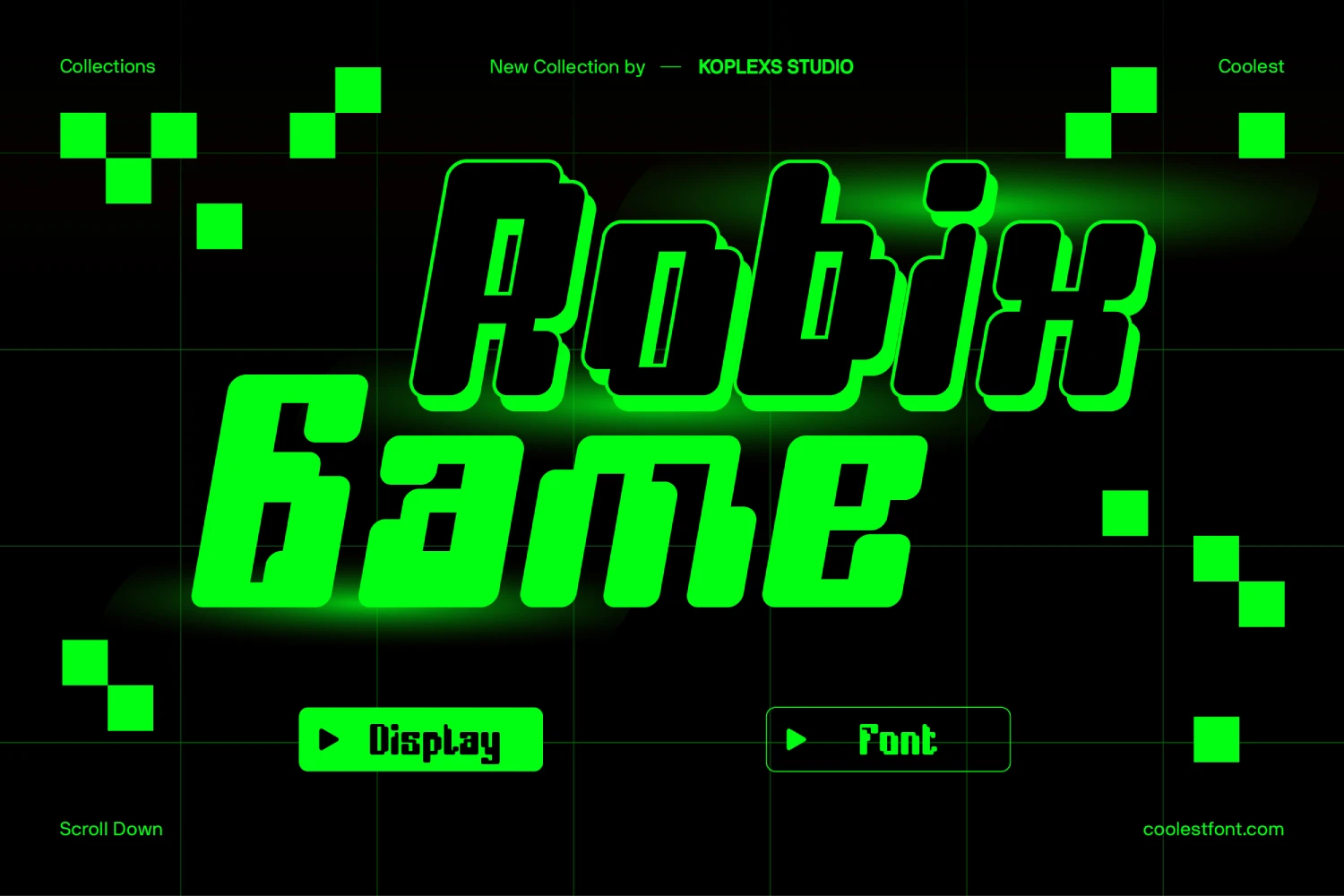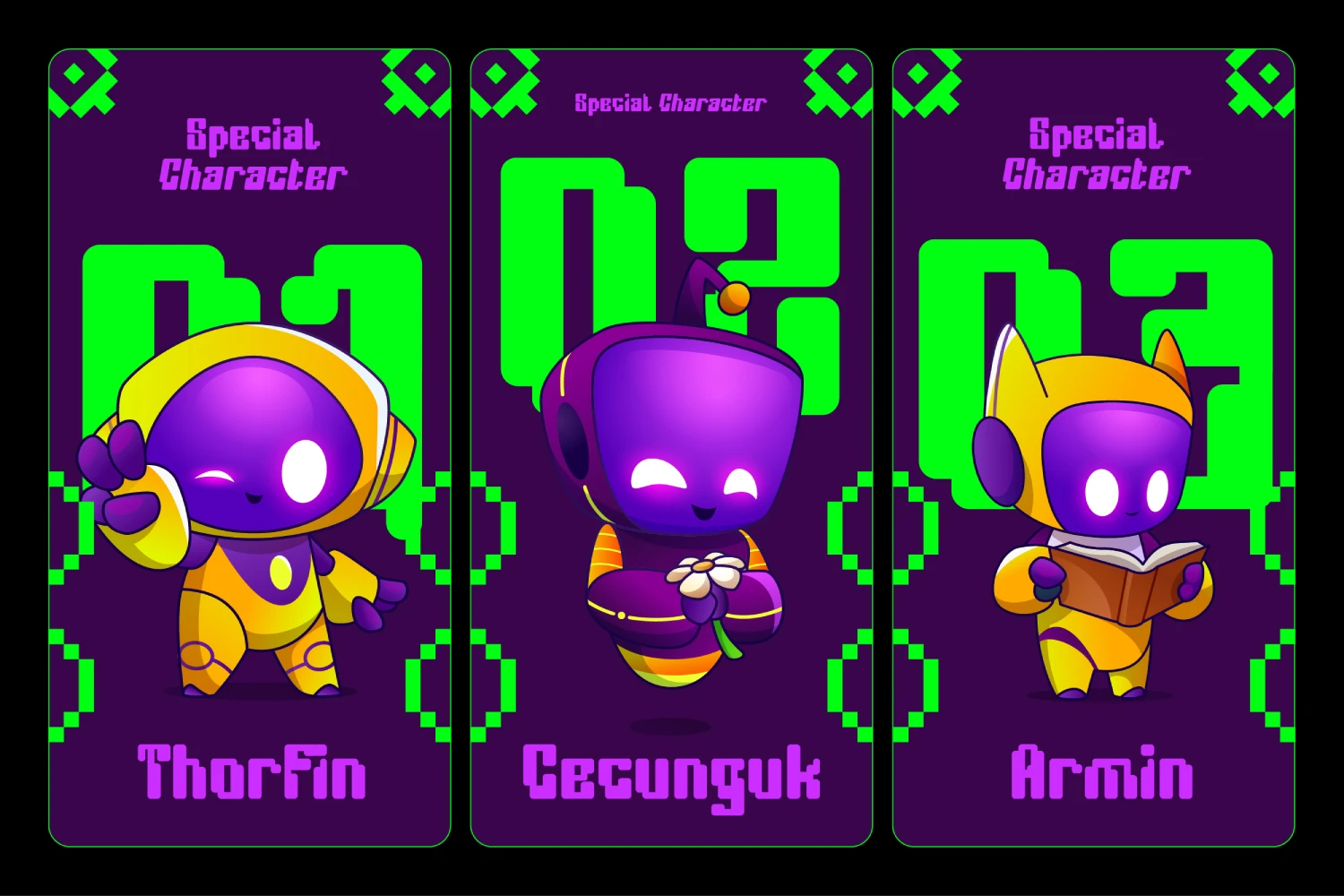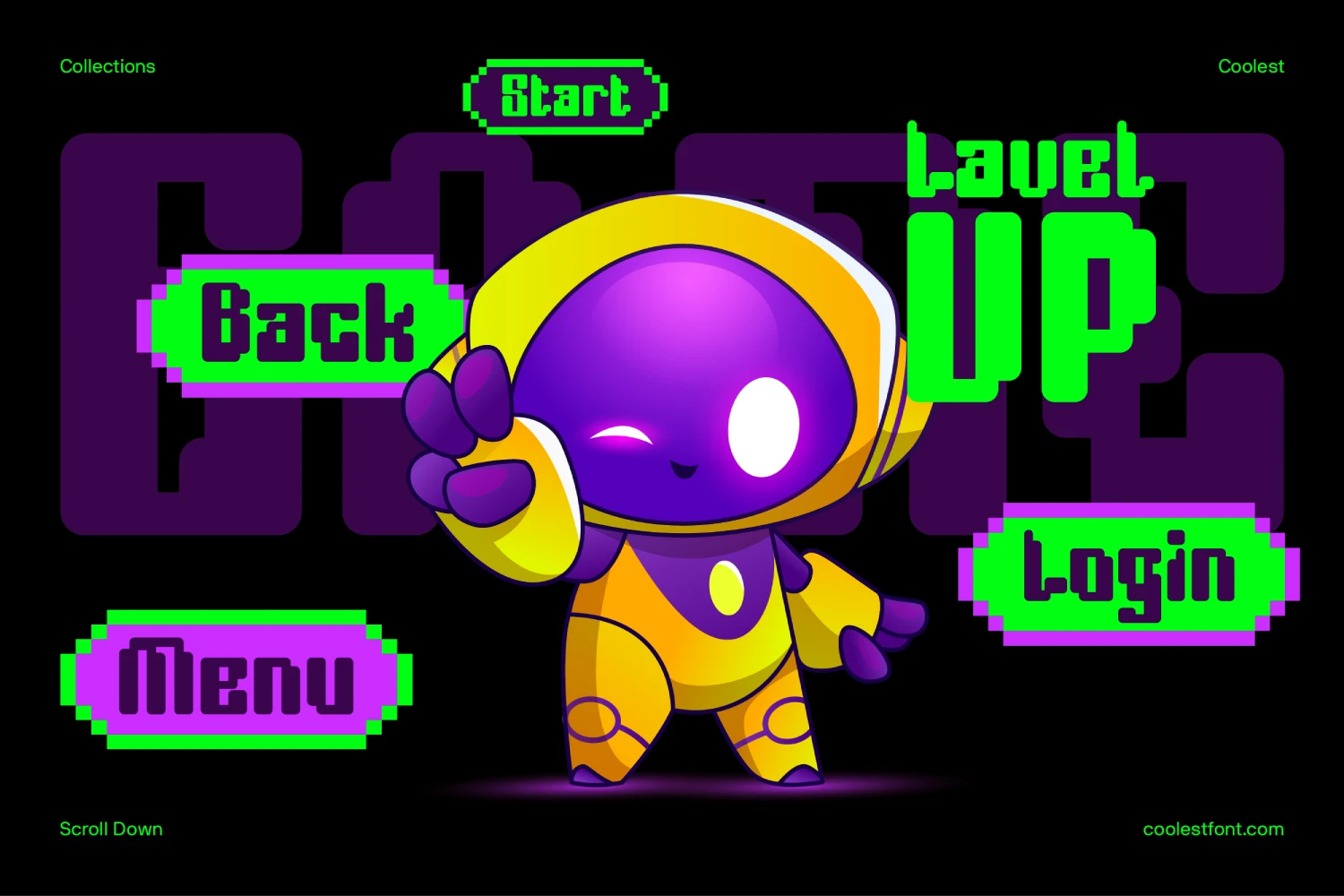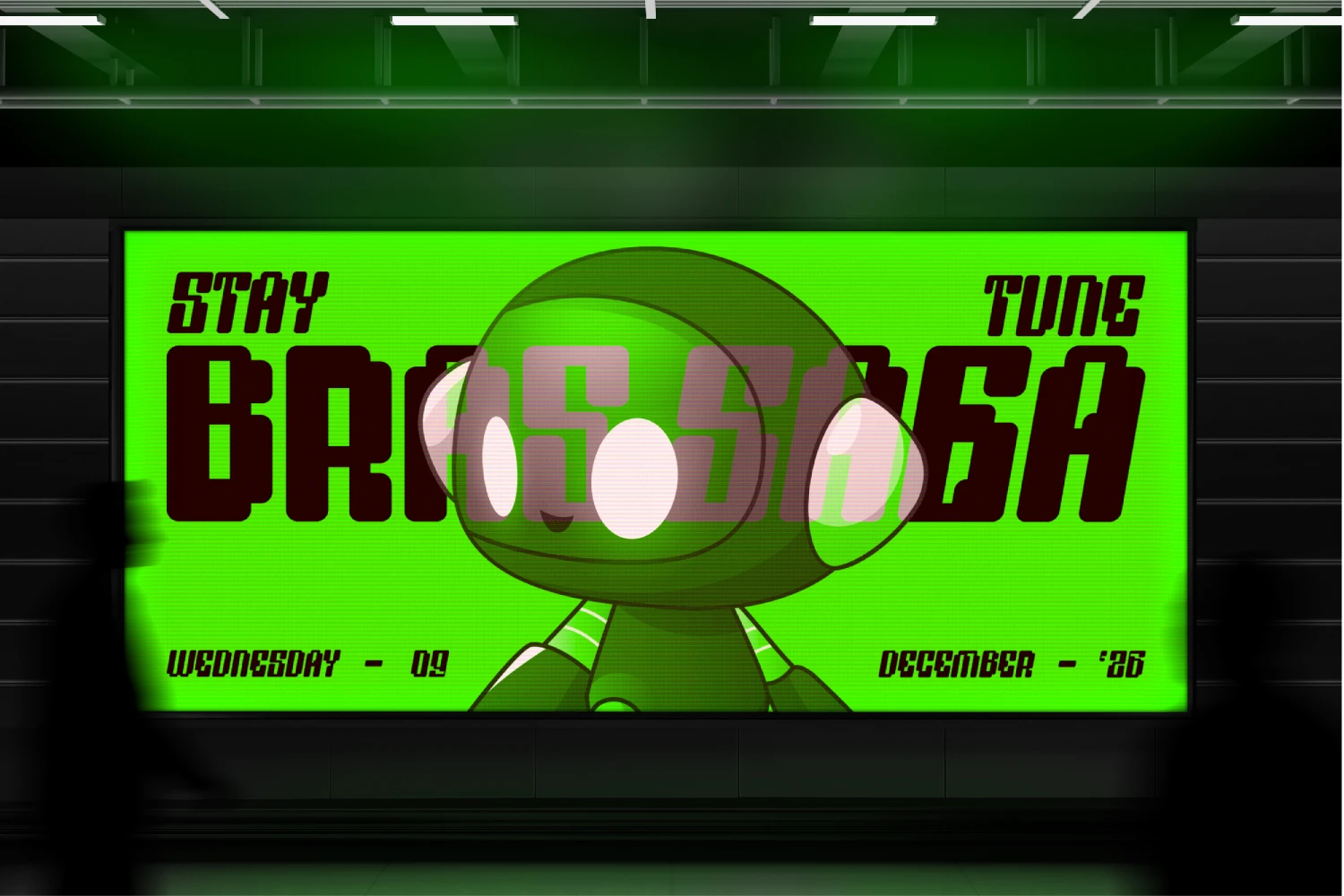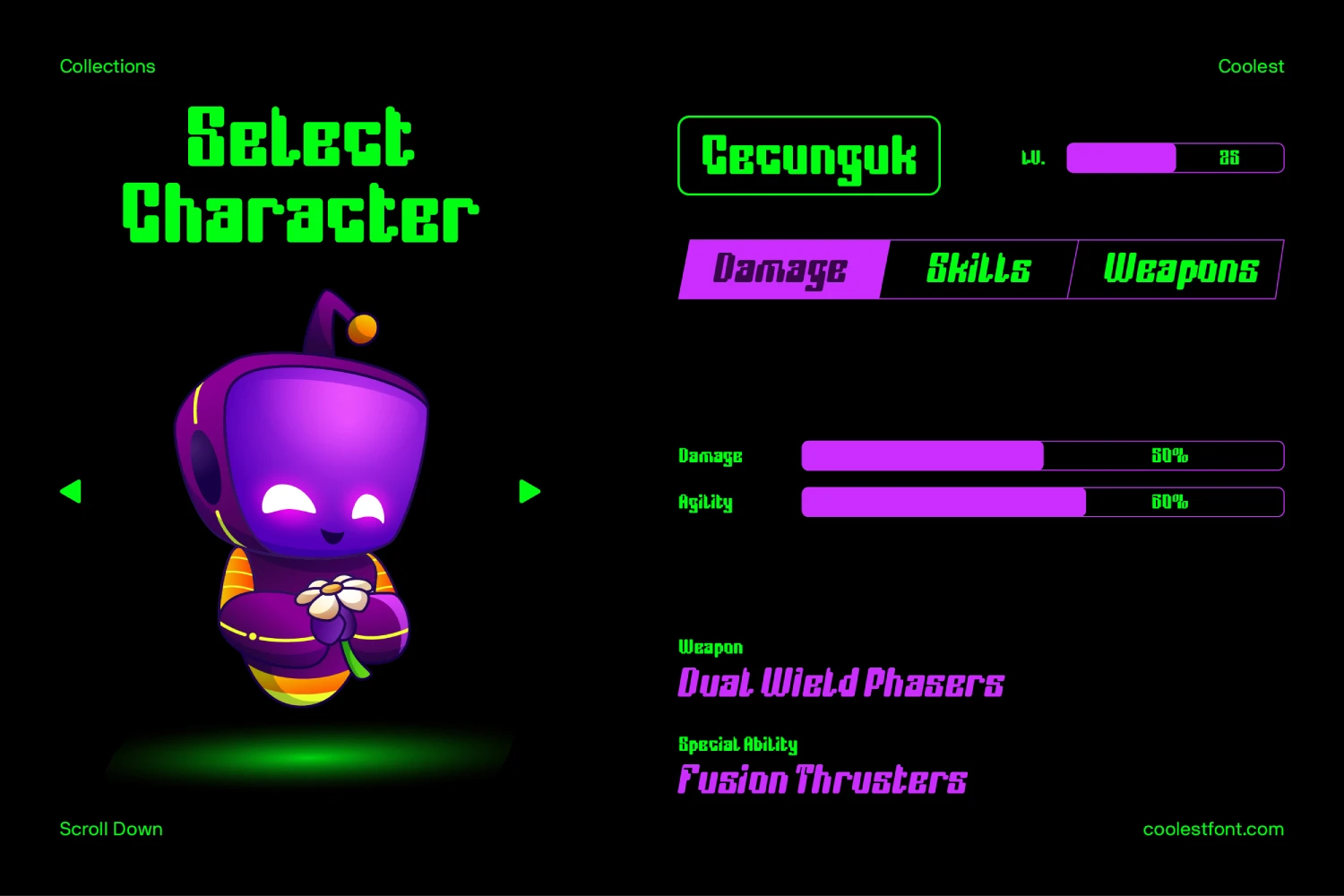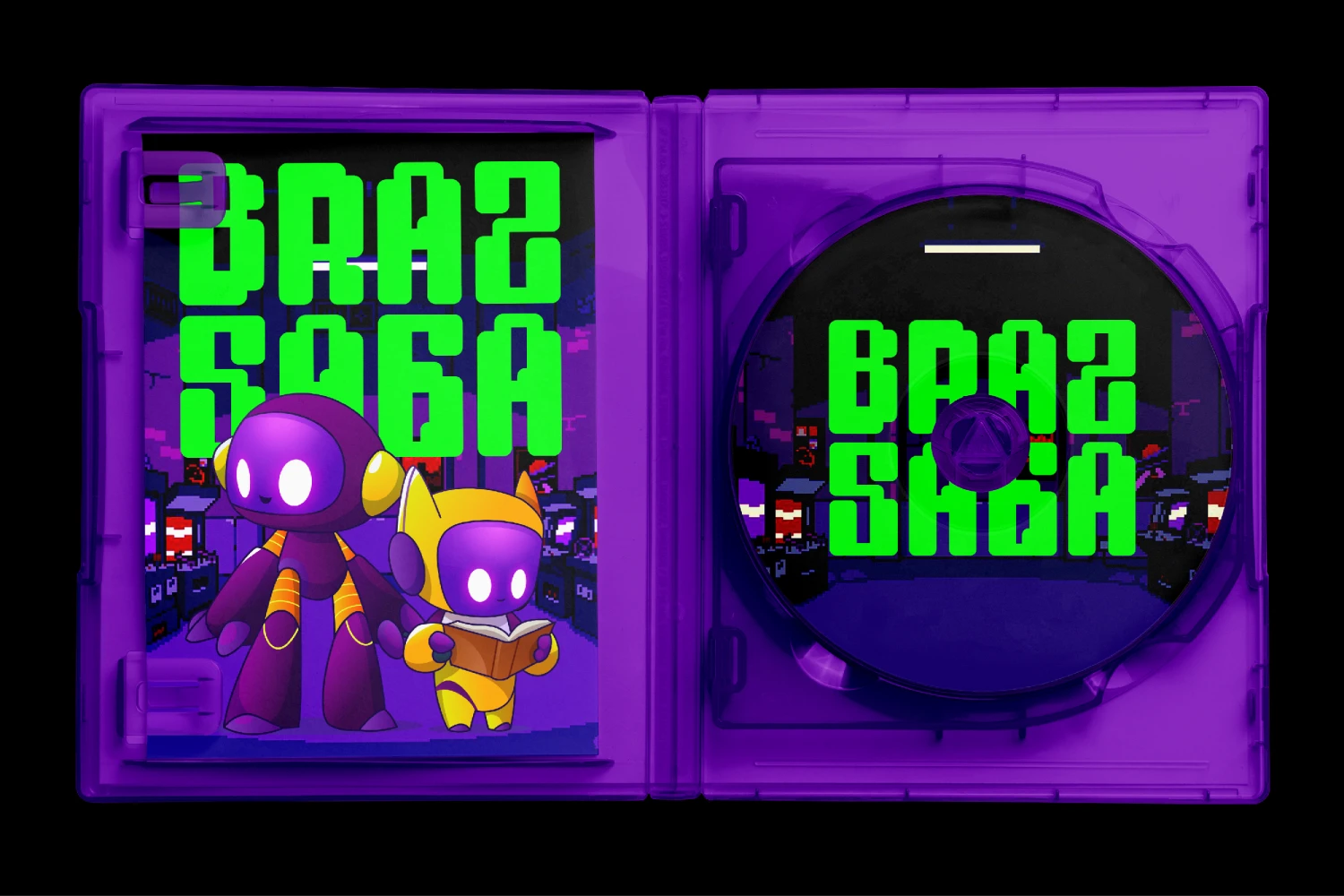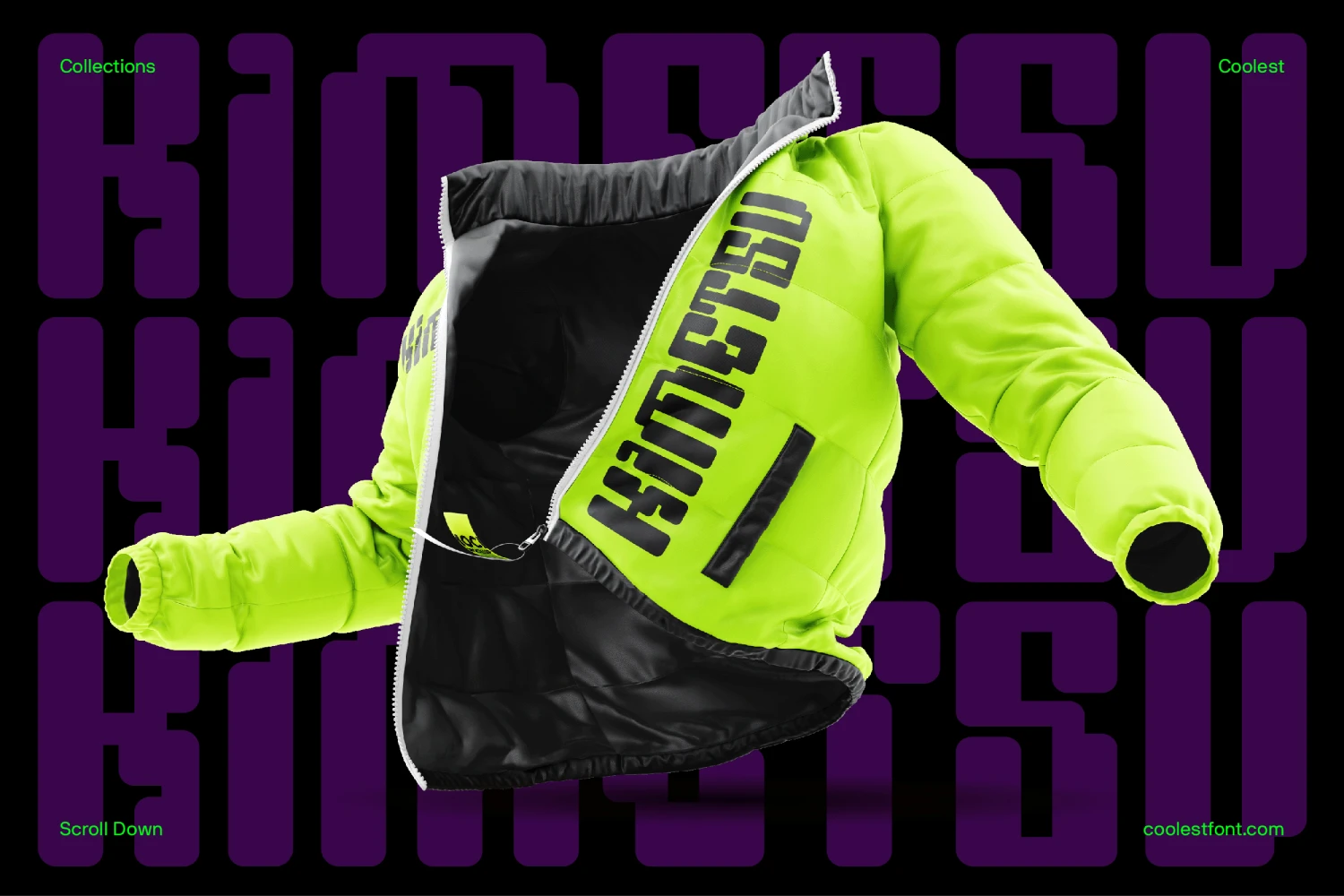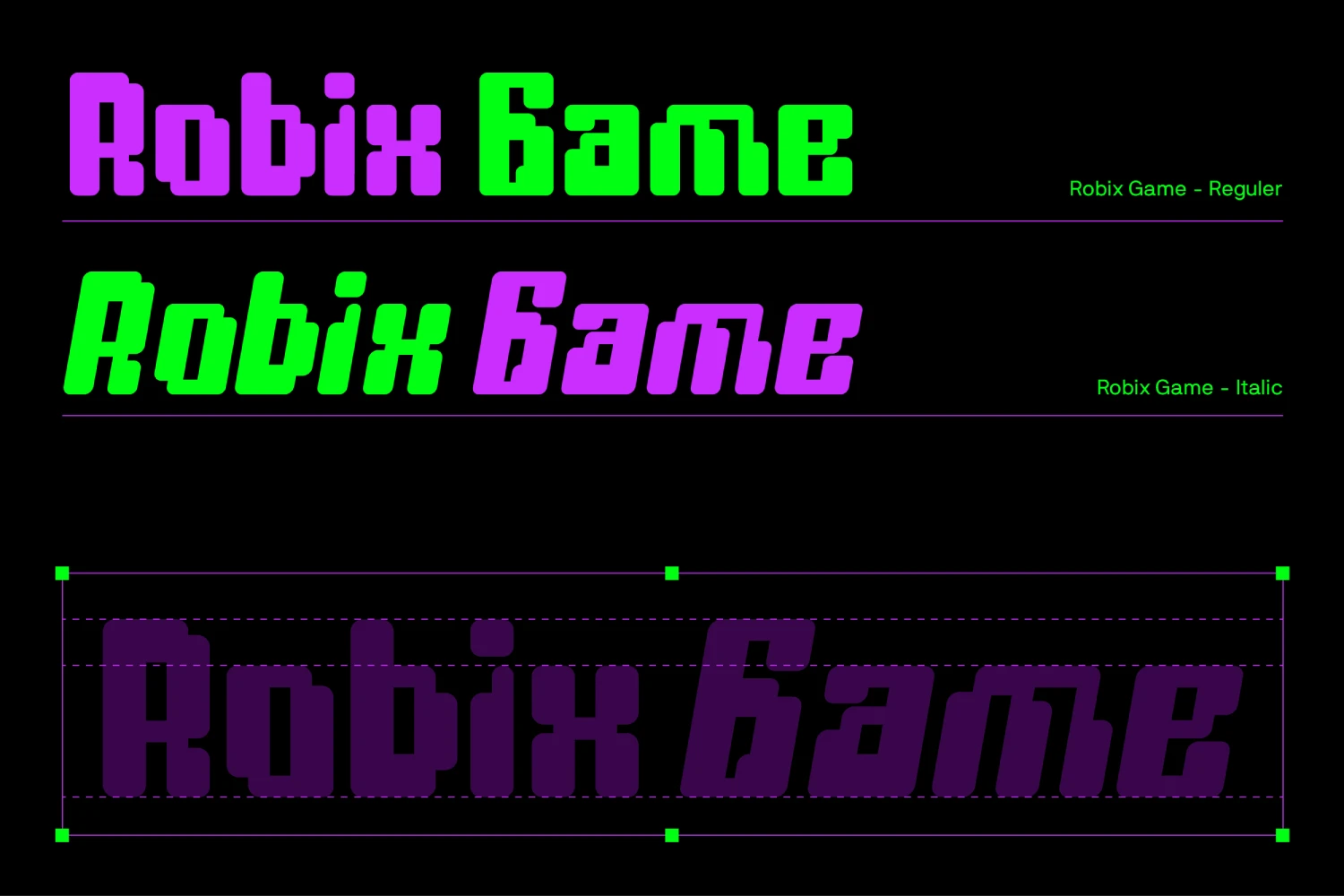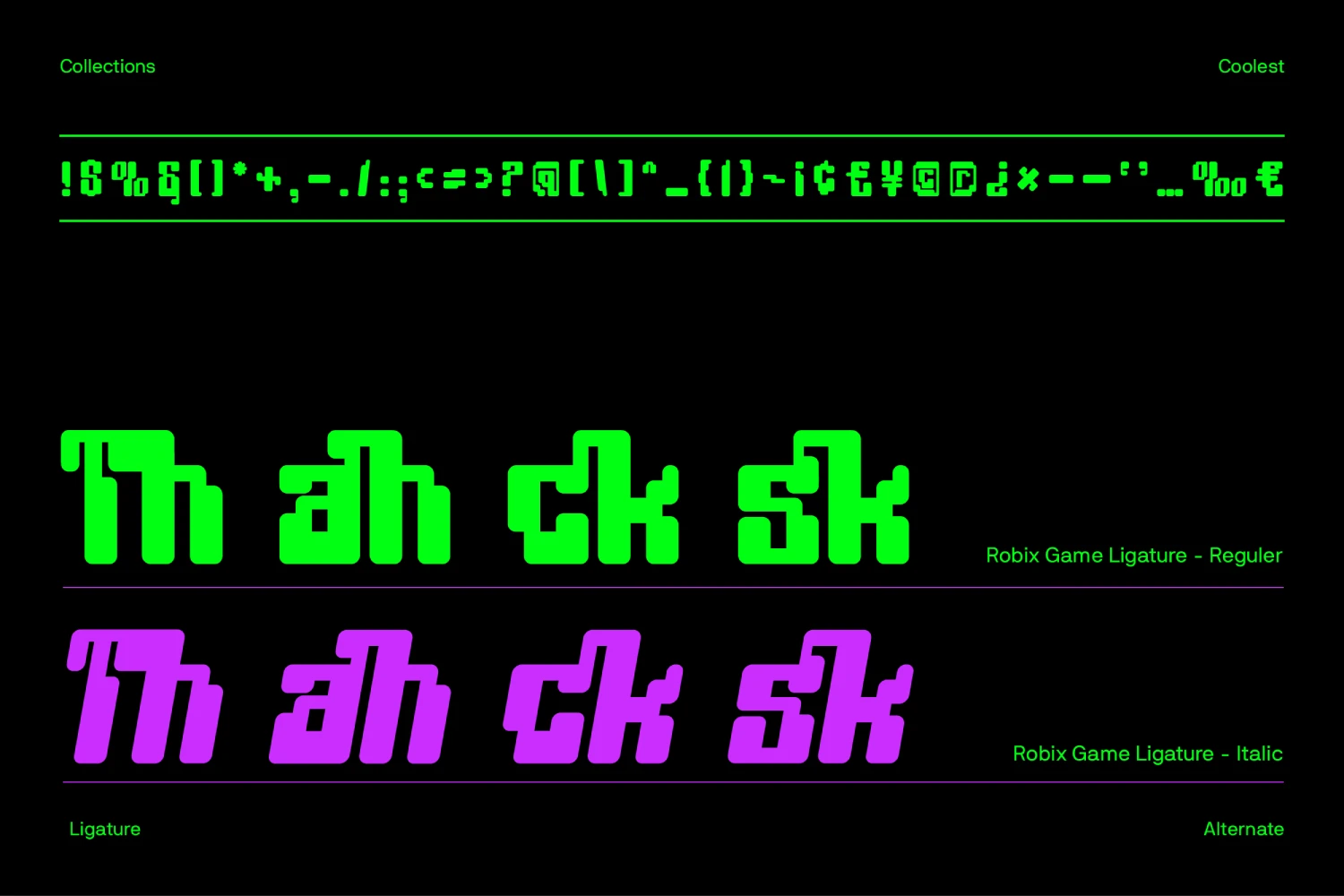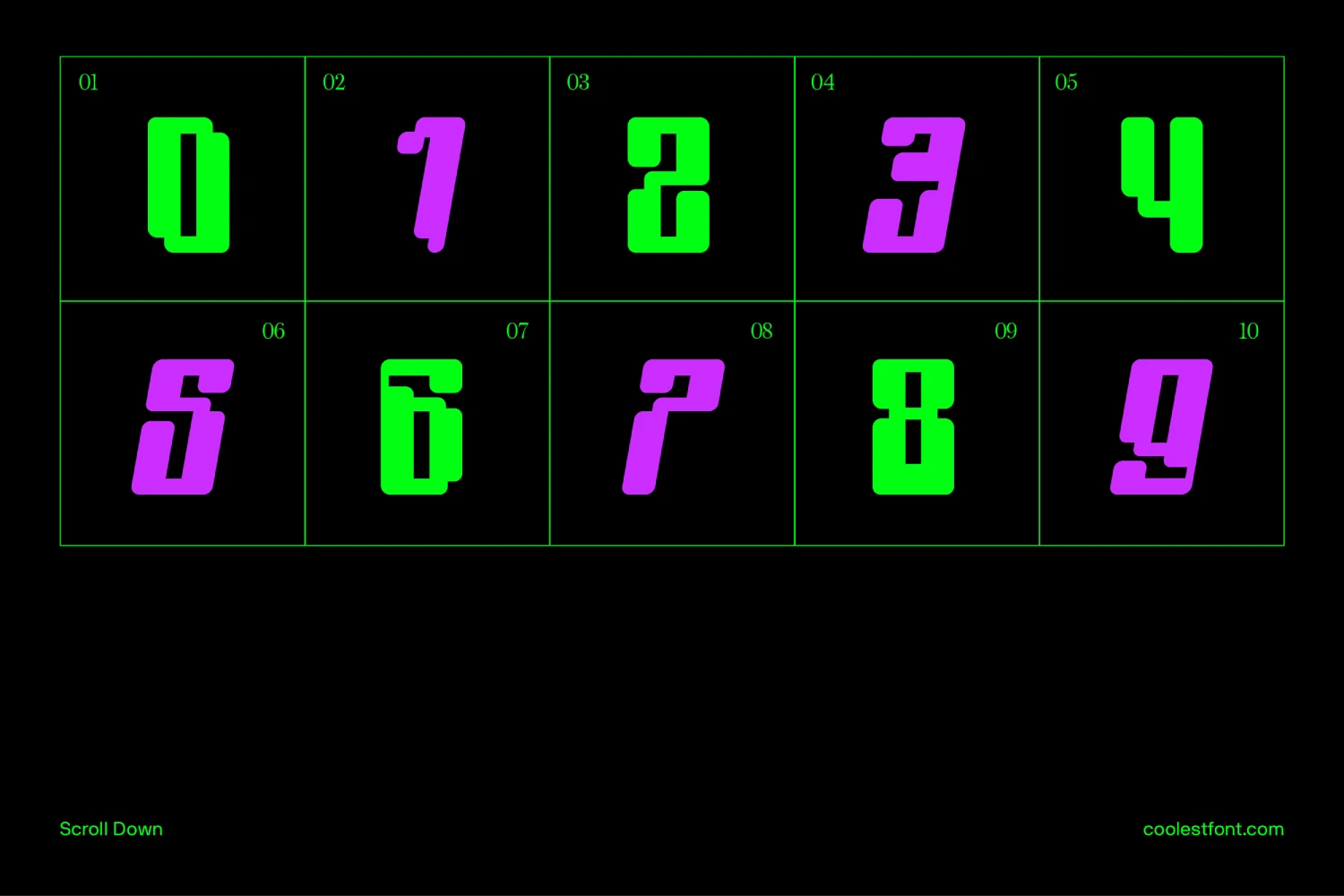
Robix Game Font – The Ultimate Futuristic Cyberpunk Display Typeface for Retro, RPG, and Sci-Fi Games
Robix Game Font is a bold and futuristic game font designed for creators who want to capture the energy of retro arcade aesthetics and modern cyberpunk style. This display font blends 8-bit nostalgia with a sleek, sci-fi-inspired edge, making it perfect for video game typography and futuristic design projects.
Created by Koplexs Studio, this gaming typeface combines pixel font elements with digital clock fonts, resulting in pixelated letters that feel alive, glowing, and dynamic. Whether you’re designing a video game logo, an RPG title screen, or a poster font for your next project, Robix Game Font delivers boldness and character in every curve.
Robix Game Font Features :
- Standard & Multilingual glyphs
- Ligatures
- Fonts include multilingual support
Robix Game Font Best Suited For :
- Video Game Titles & UI Design
- App & Dashboard Interfaces
- ️ eSports Branding & Streaming Overlays
- Retro Arcade Posters & Covers
- Futuristic Apparel & Merchandise
- Sci-fi, Fantasy, or Cyberpunk Projects
Robix Game Font Key Features:
- Bold display font with pixel-block letter shapes
- ️ Perfect for retro game font and 8-bit fonts projects
- Inspired by cyberpunk font and futuristic game font styles
- ⏱️ Includes digital time clock font and clock fonts aesthetics
- Great for fantasy font, RPG font, and sci-fi font genres
- ✨ Highly readable and ideal for headline font, logo font, poster font, and cover font
- Unique pixelated letters with a modern touch